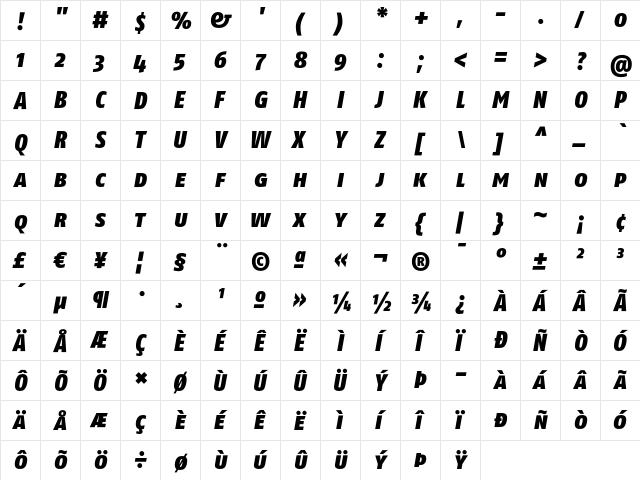
FagoCo BlackItalicCaps
Design Context for FagoCo Typeface
FagoCo offers clean, dependable letterforms without strong stylistic allegiance, making it a practical choice for designers who need flexibility. The dynamic lean of this cut emphasises speed and emphasis in any layout.
Pro Tip: Try FagoCo for annotation and caption copy alongside an upright companion — the contrast in angle creates a dynamic but ordered typographic system.